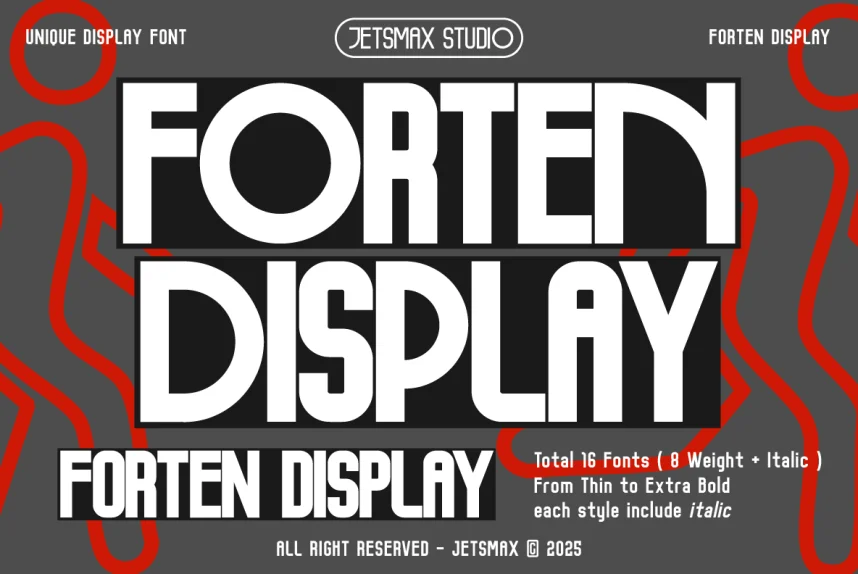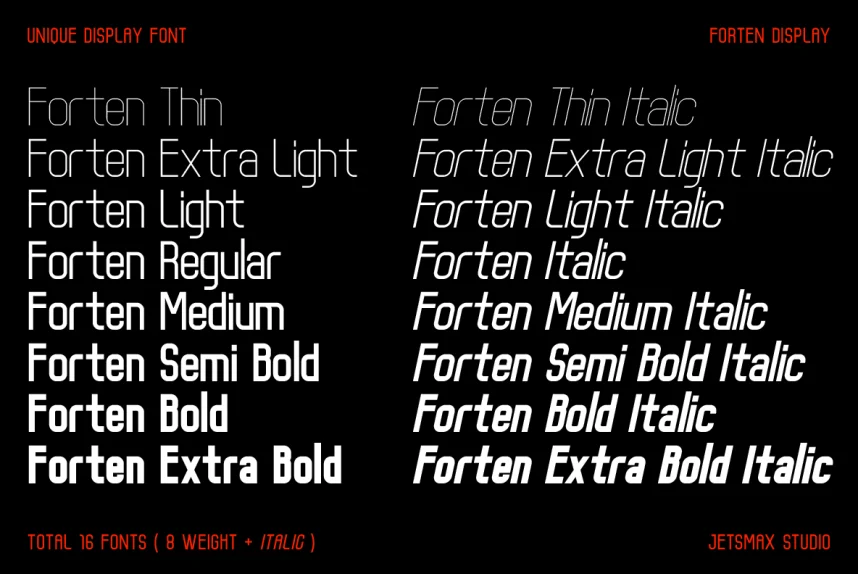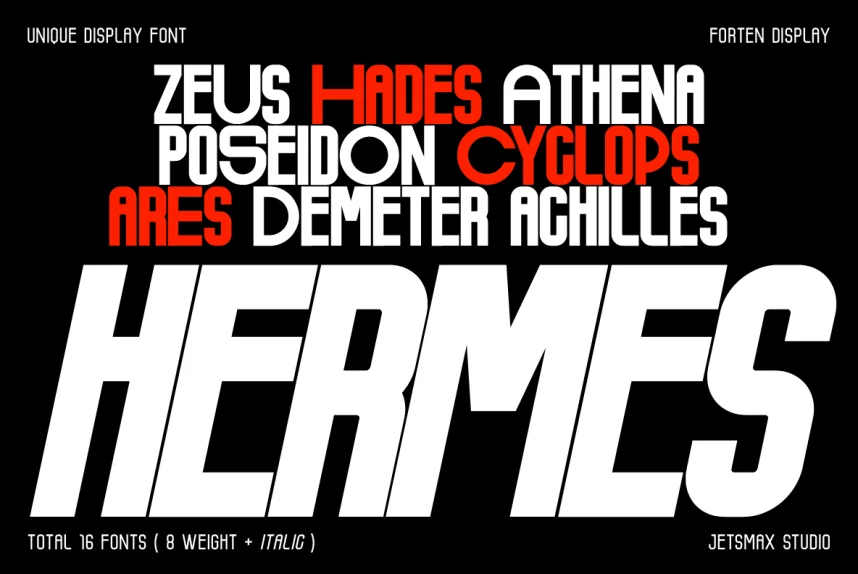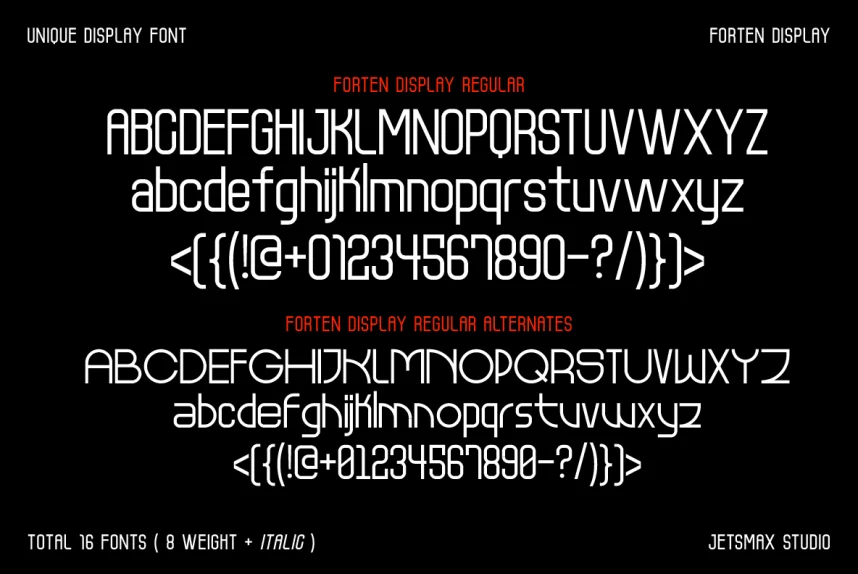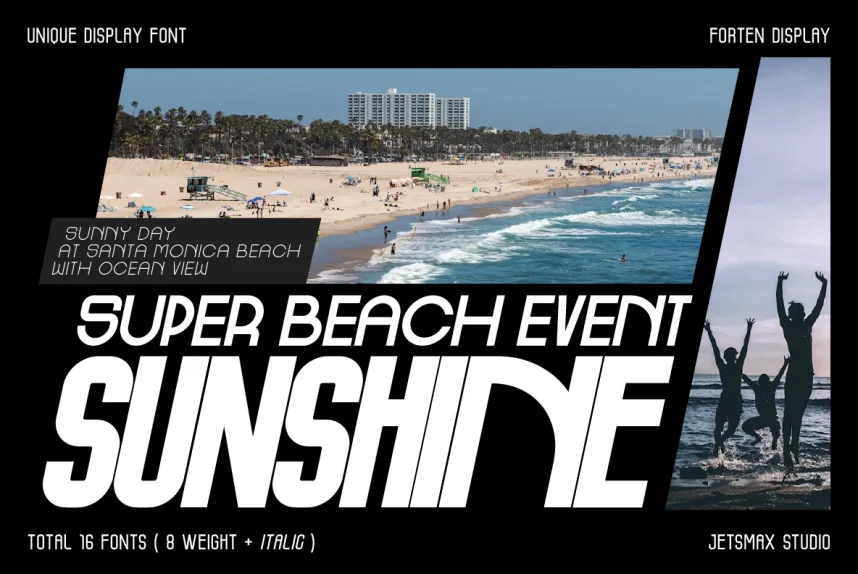
Forten Display Font Family addresses the need for high-impact text in large-format designs where visibility and structure are essential.
This font family falls under the display font category, featuring bold weights, consistent geometry, and strong visual rhythm. The letterforms use solid strokes and controlled spacing, which helps maintain clarity at large sizes without distortion.